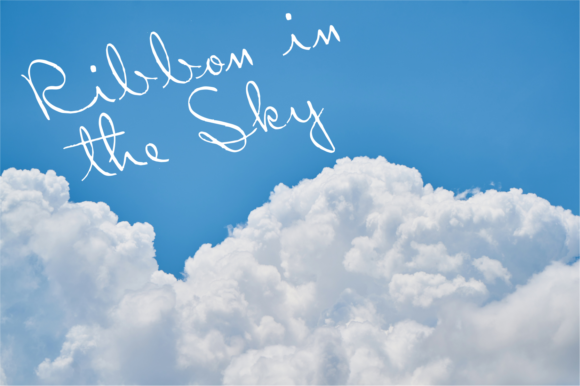
Ribbon in the Sky Font
About Ribbon in the Sky Font
The Ribbon in the Sky is a naive handwritten font. It has a great readability and will add an elegant style to your designs.